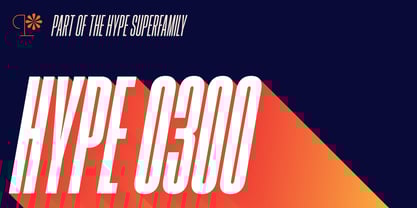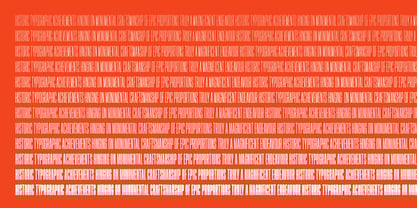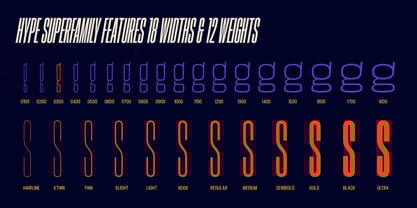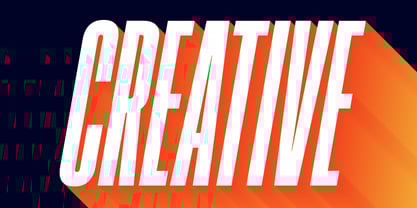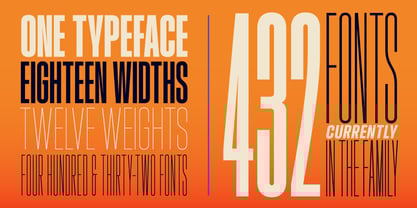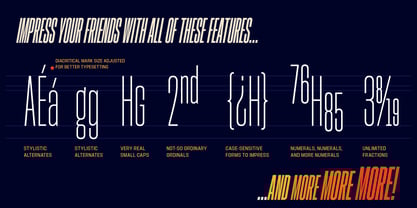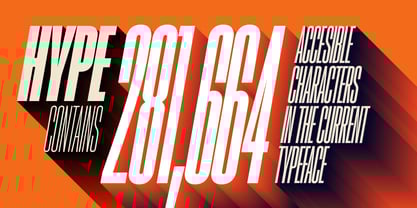
Hype 0300
by Positype
The Hype 0300 Font Family was designed by Neil Summerour and published by Positype. Hype 0300 contains 24 styles. More about this family
Hype lives up to its name. An energetic attempt to blow past previous sans’ descriptive words of massive, large, extensive, super and others. Hype transcends the everyday marketing terms and rests solely atop them all with a jaw-dropping current offering of 432 fonts that spans 18 widths and 12 weights. Insert a long pause and mic drop here, because nothing compares.
Hype’s bombastic approach meant supplying everything it could within each typeface: including small caps, yes small caps, a full numeral set that includes inferiors and superiors, super- and subscripts, full fraction support, case-sensitive forms, stylistic alternate letterforms, and more while touting a full Western, Central and South Eastern European character support.
Embracing a Univers-esque bravado and a willingness to push the envelope, Hype leaves even more room to grow. No corners were cut, no shortcuts taken with a focus on sensible, efficient letter construction and functional reliability that ignores any one classification and instead looks to form an amalgam of classic sans styles influenced by wood type, movie showcards, and urban industrial letterforms.